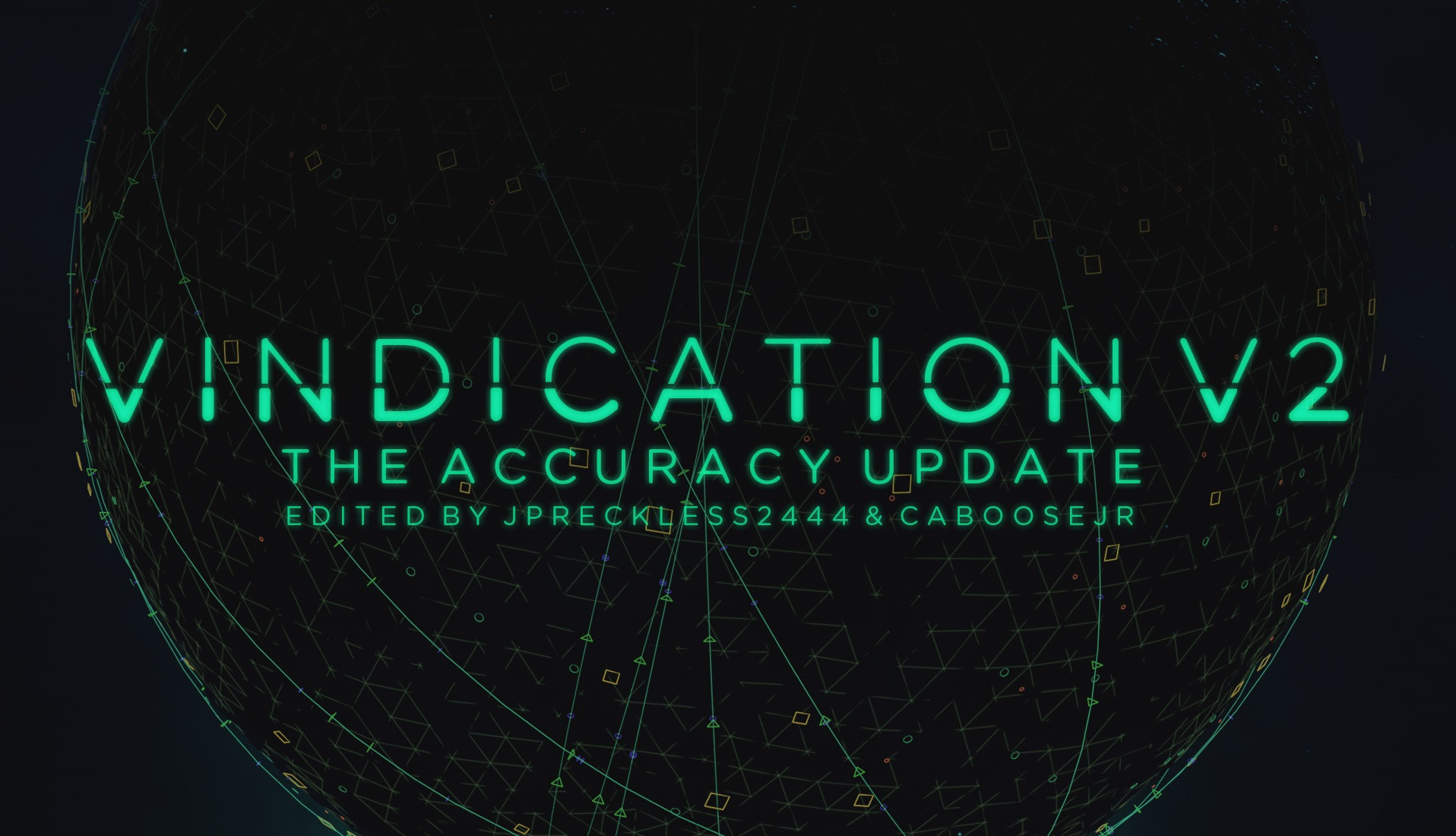
This is version 2 of the Vindication Font. This one matches the actual logo.I didn't re-edit it myself. CabooseJr helped out with the rounded bottom part of the font. Go show him some love & support.
Also, added glyphs.
The weights are Gotham Rounded Light & Medium